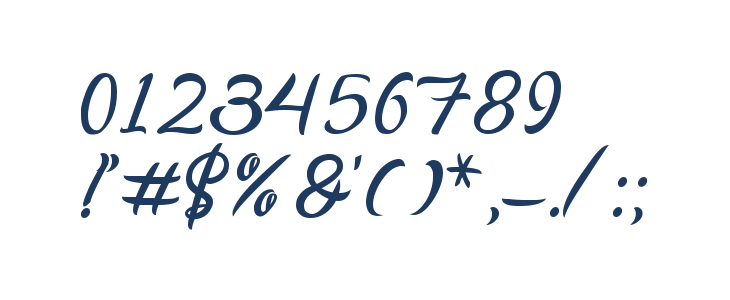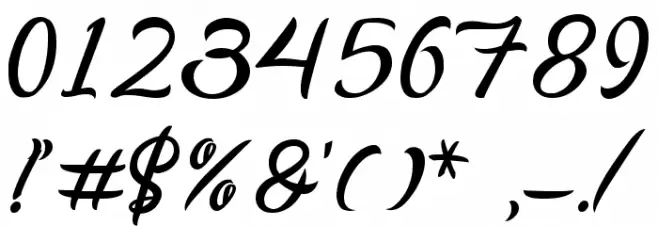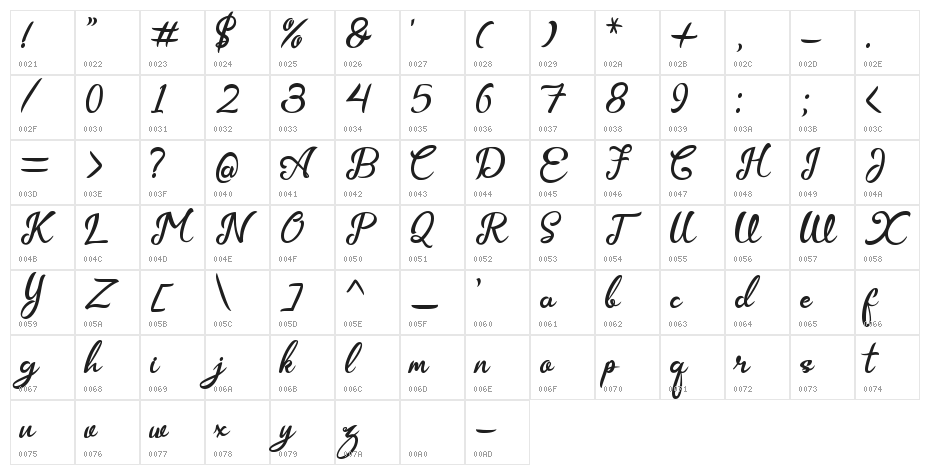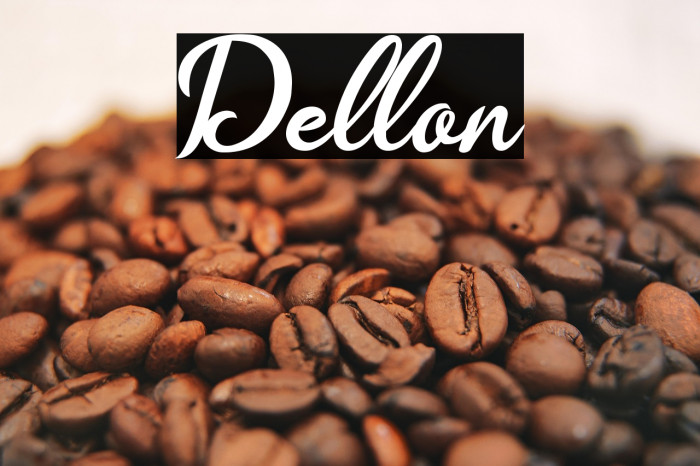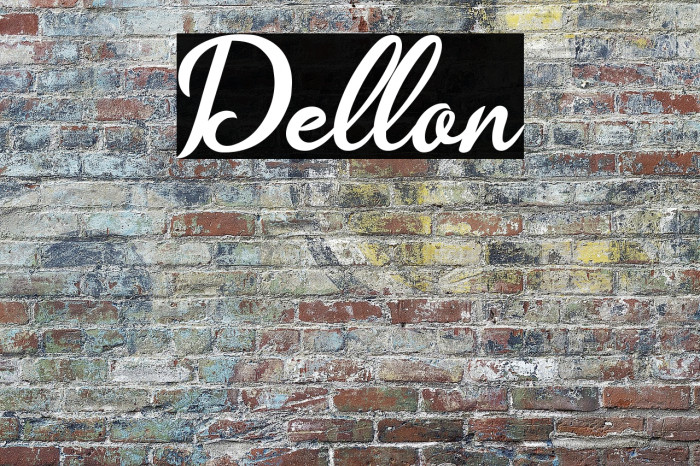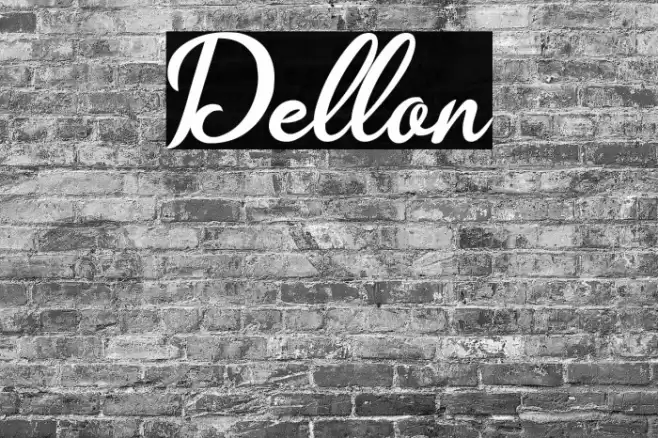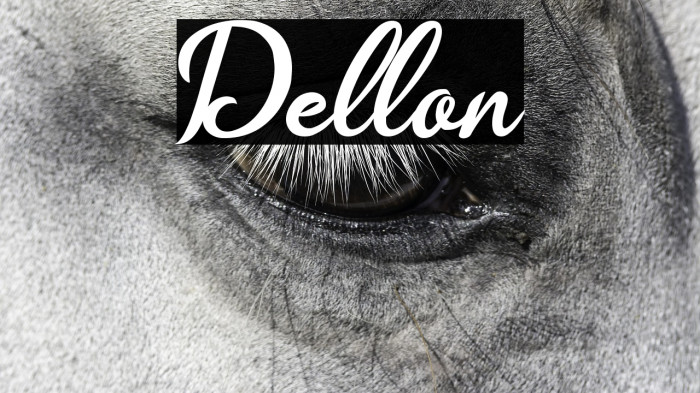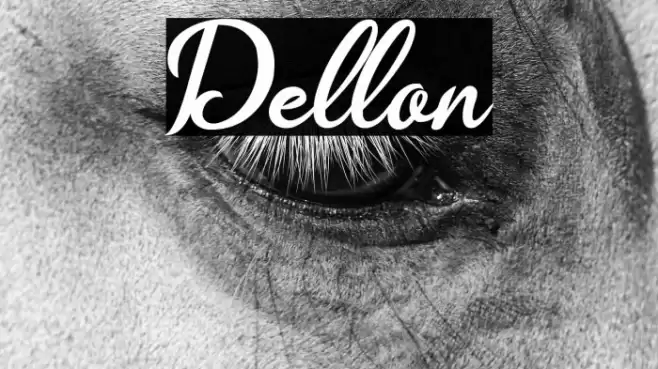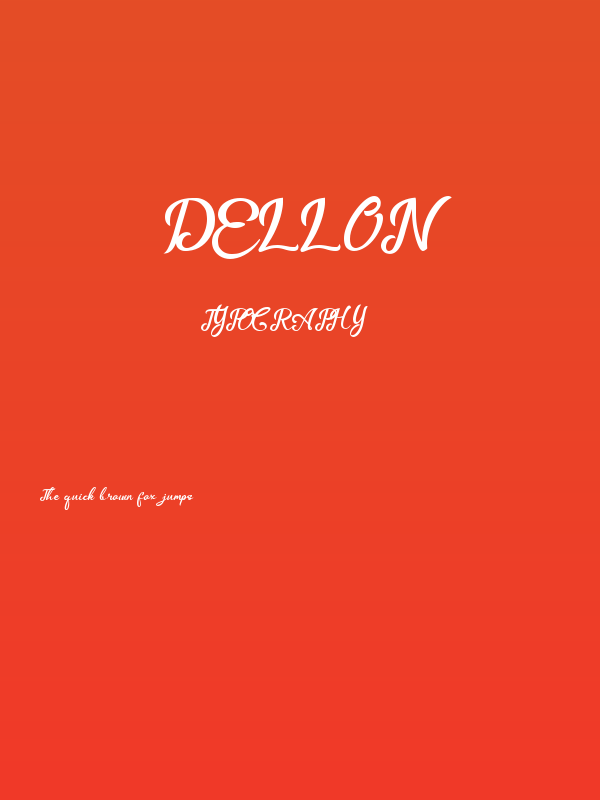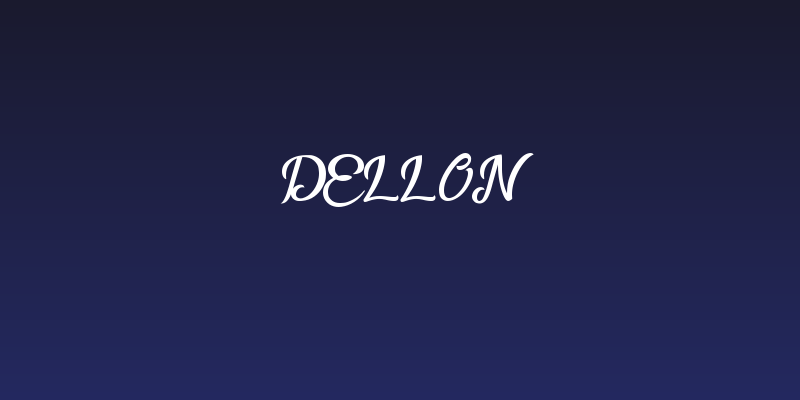
Dellon Font
Dellon Description
This font exudes a classic and elegant script style, characterized by its flowing, cursive letters that mimic the fluidity of handwritten text. The uppercase letters are bold and prominent, while the lowercase letters maintain a graceful continuity, enhancing the overall aesthetic. The numbers and special characters are crafted with the same attention to detail, ensuring consistency across all elements. The font's design is both sophisticated and versatile, making it suitable for a wide range of applications. Its smooth curves and balanced proportions contribute to its readability, despite the intricate design.
| Use Case | Logos, Invitations, Decorative headings |
| Proposed Projects | Ideal for wedding invitations, elegant branding, greeting cards, and decorative headings. |